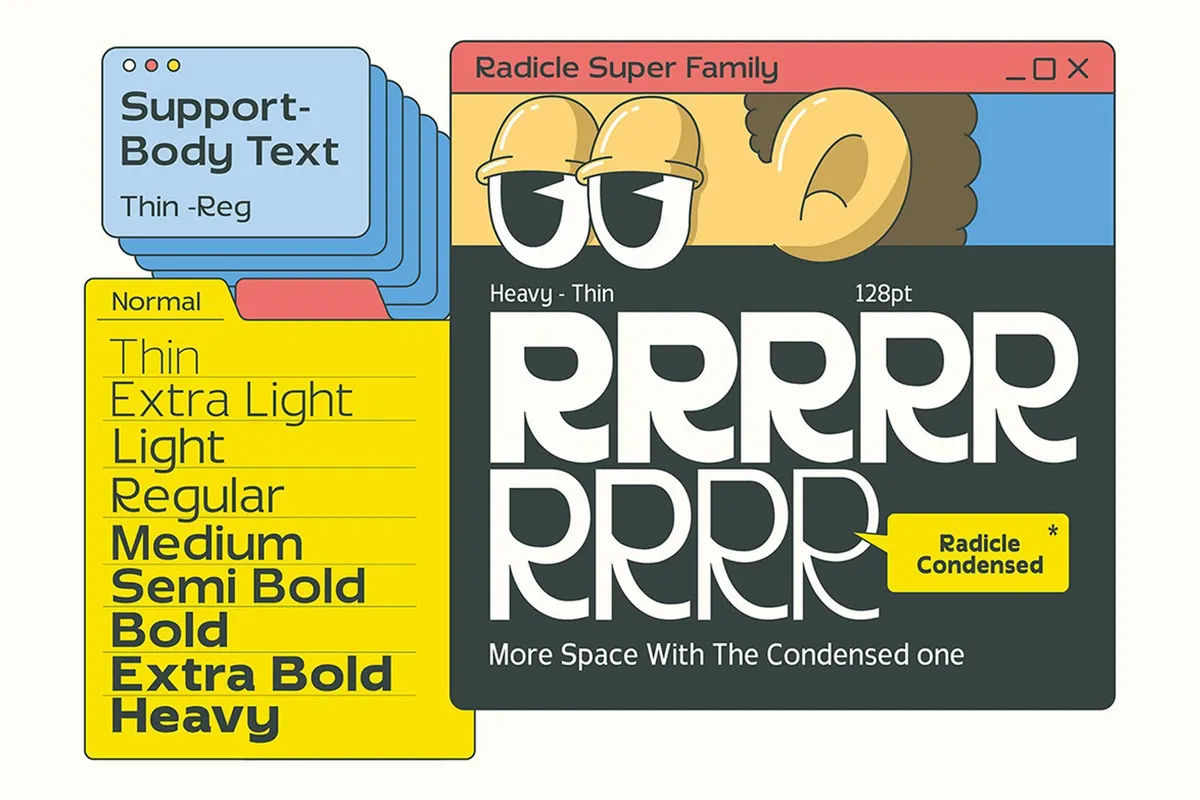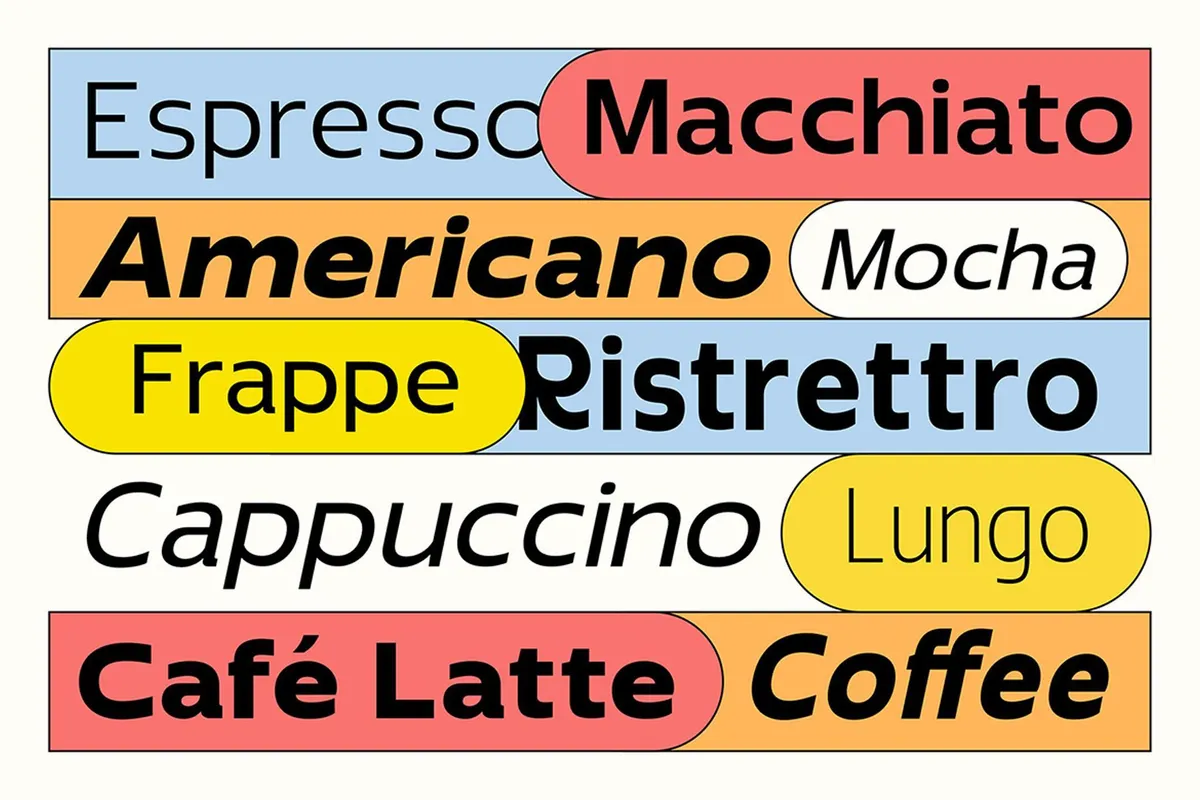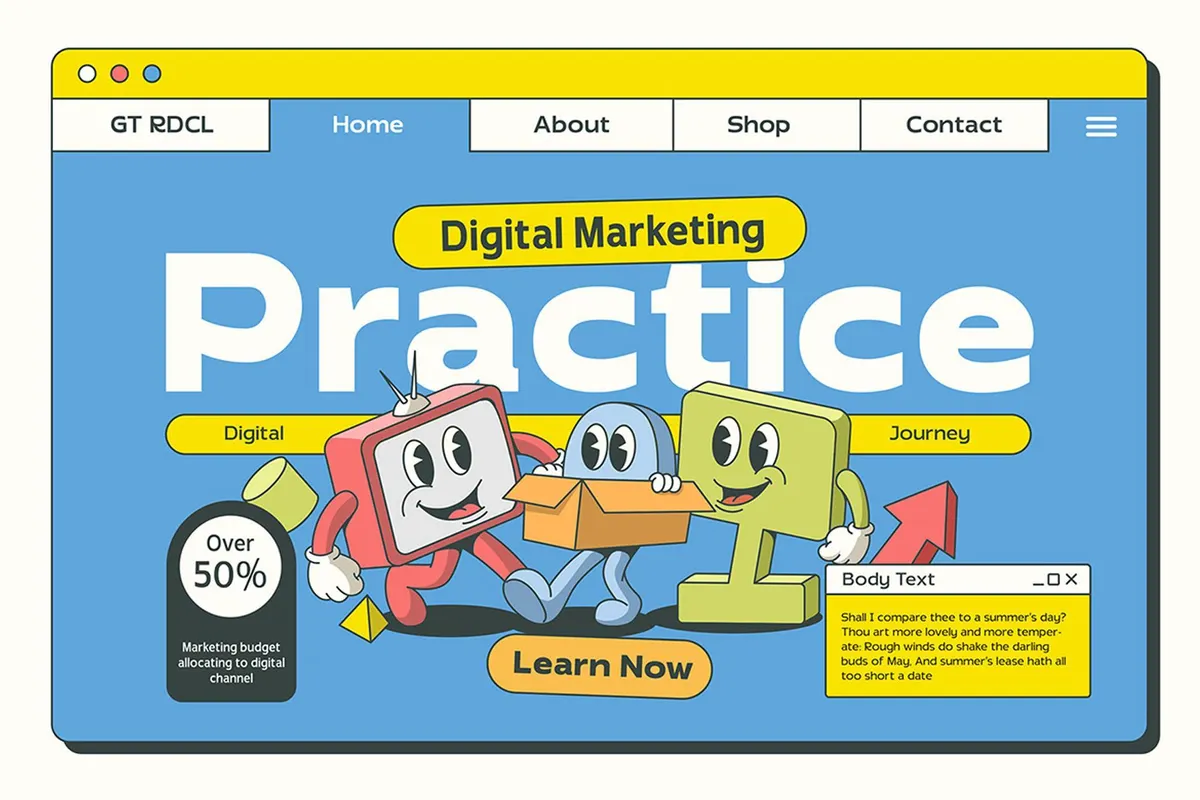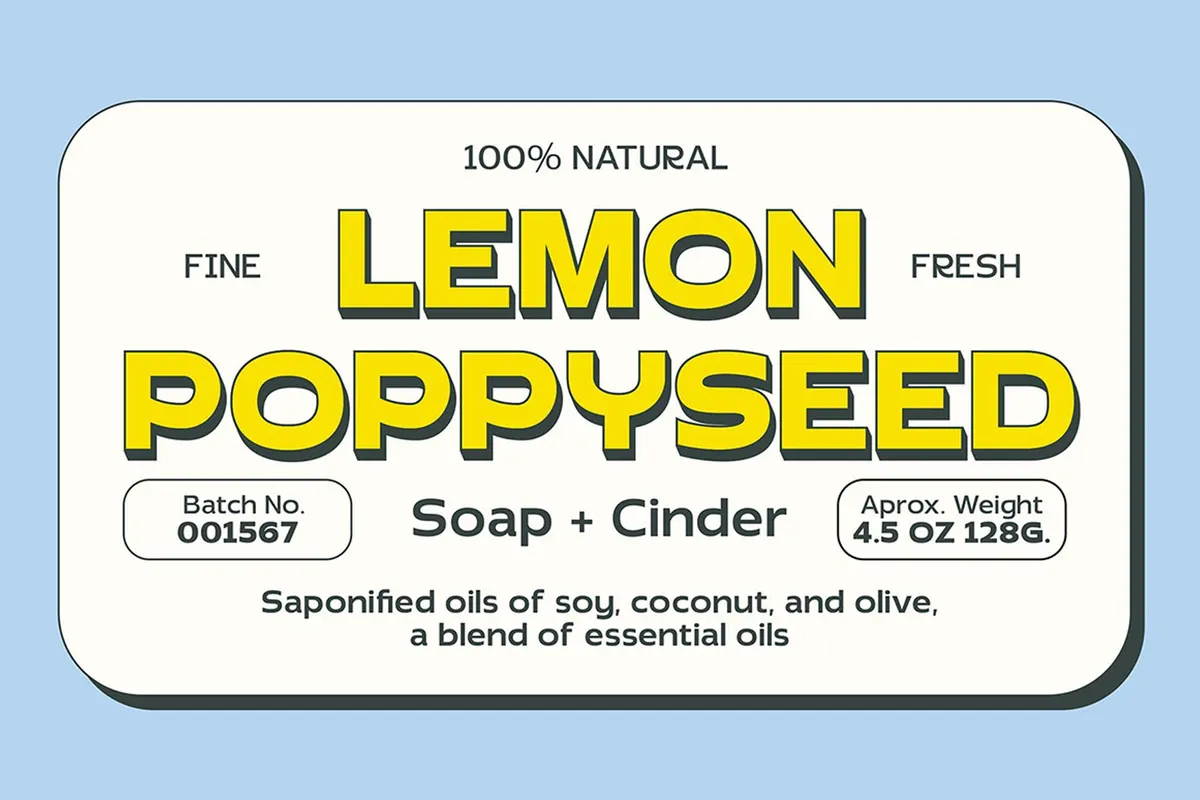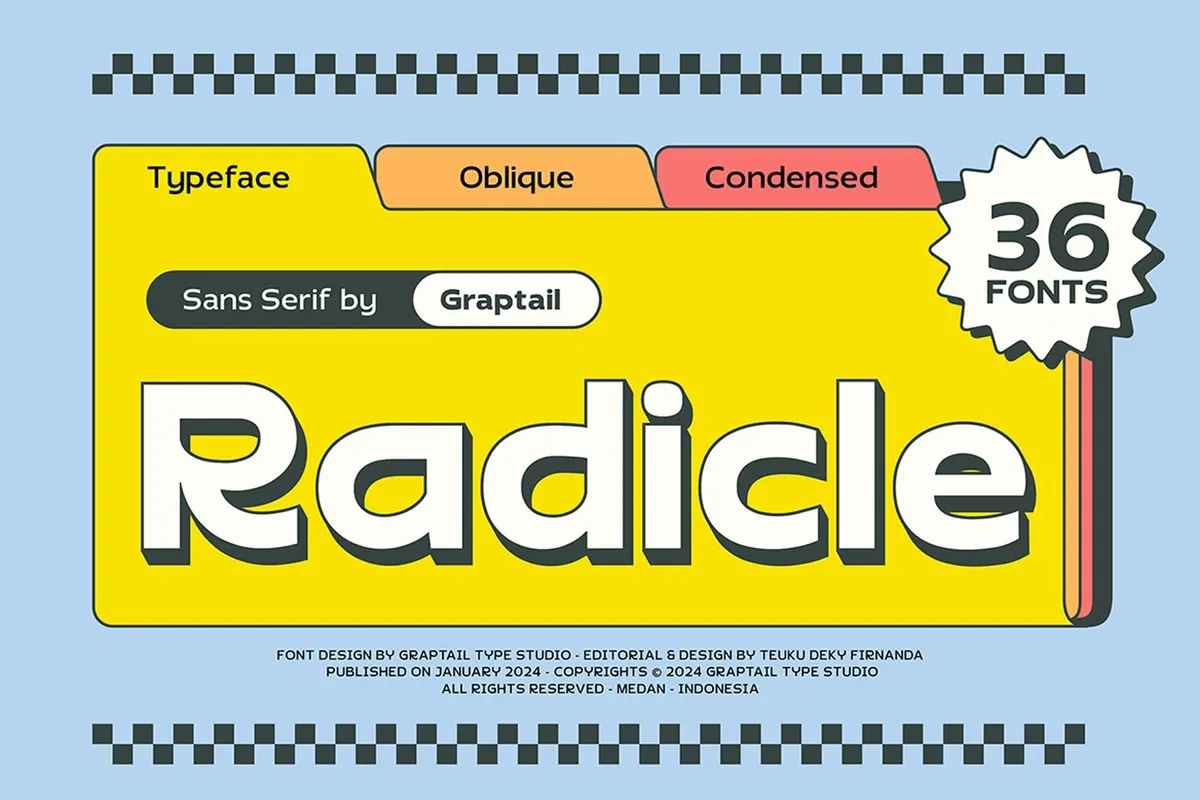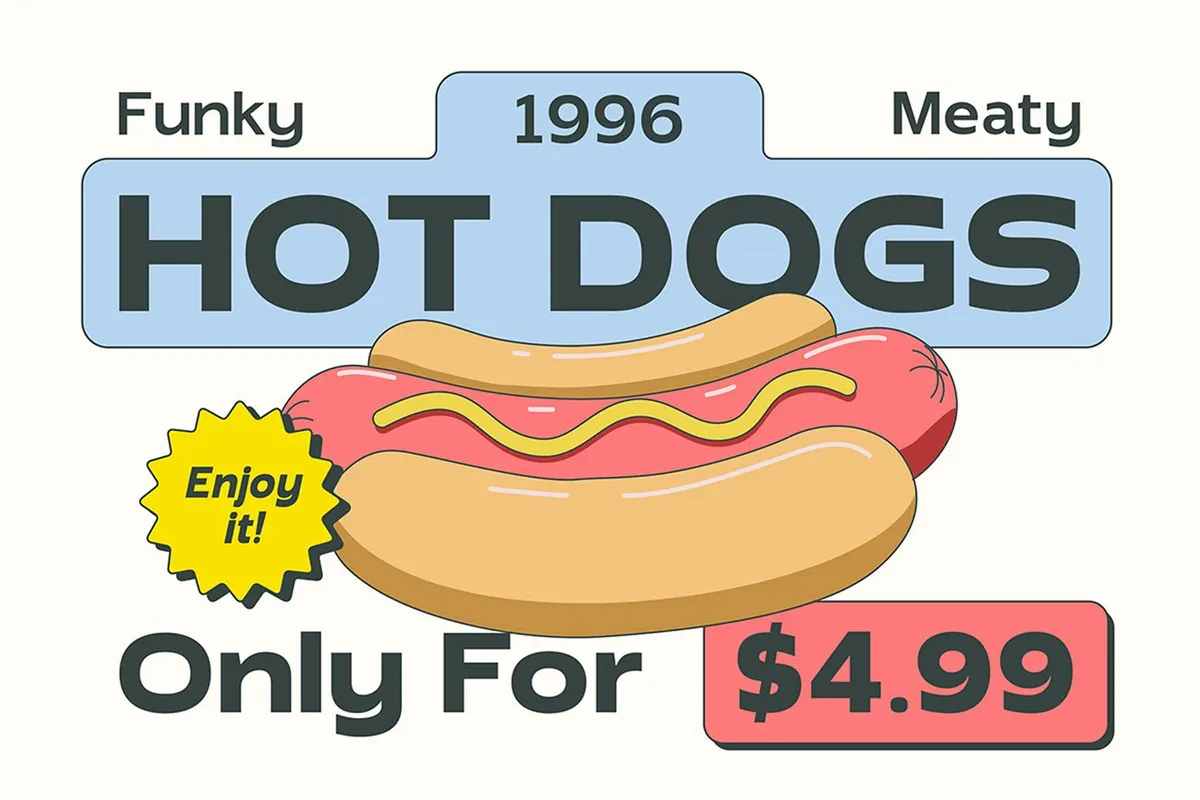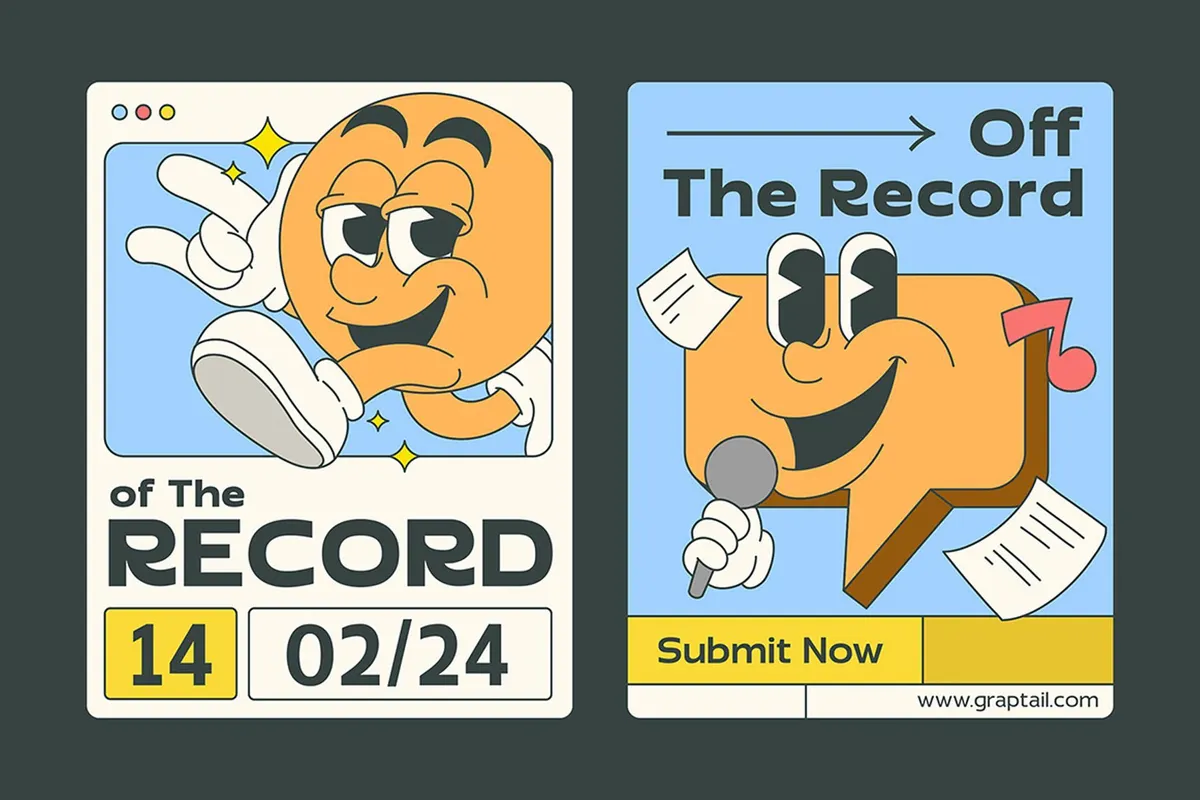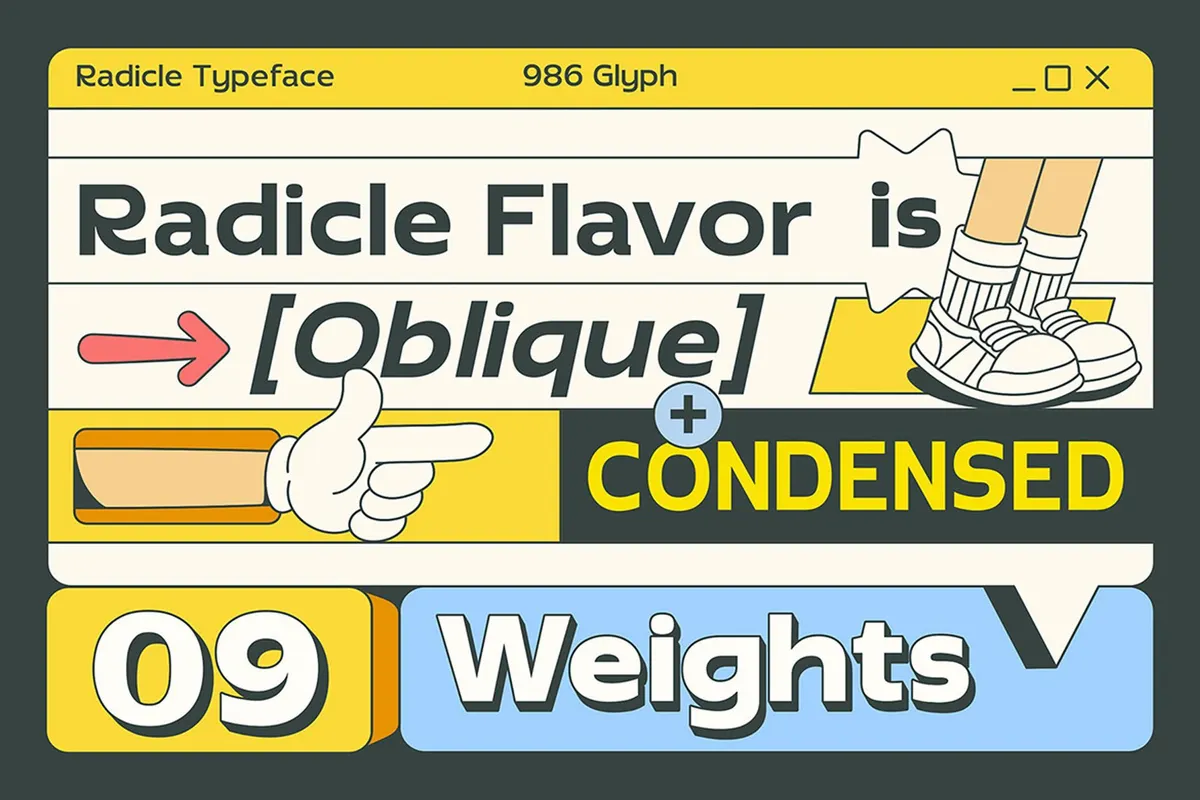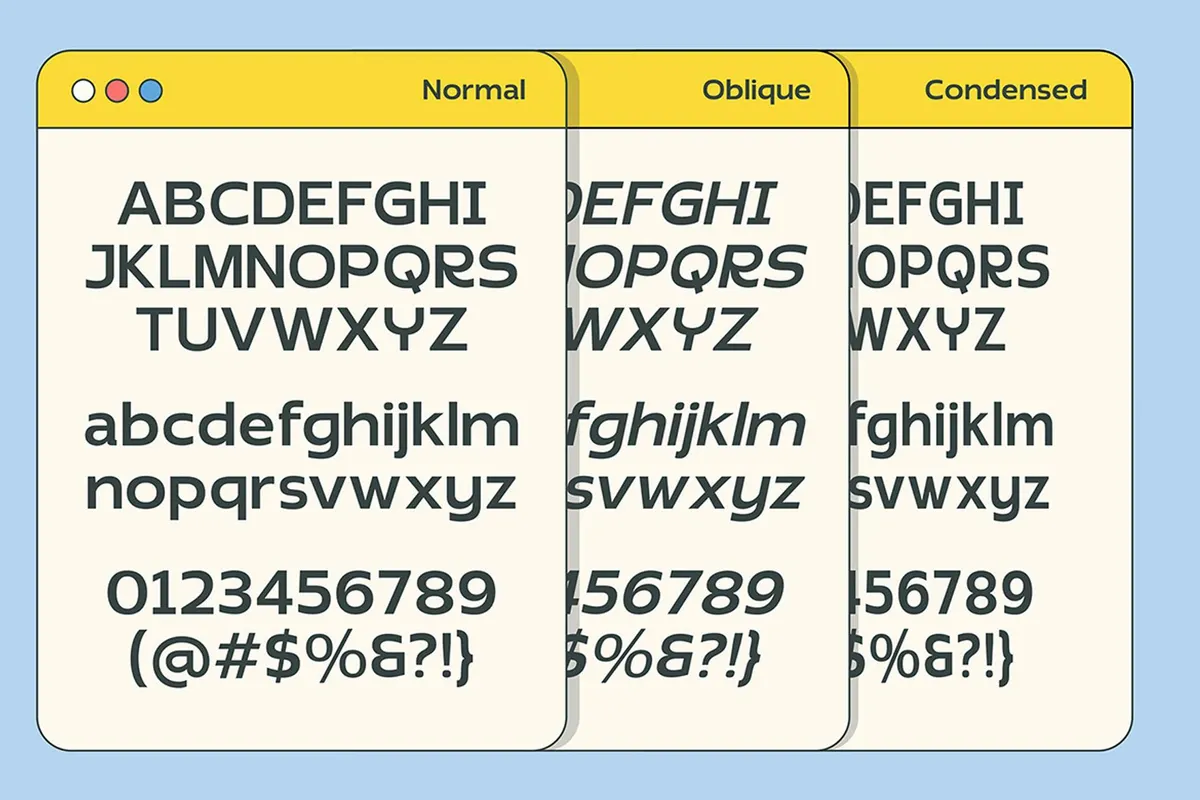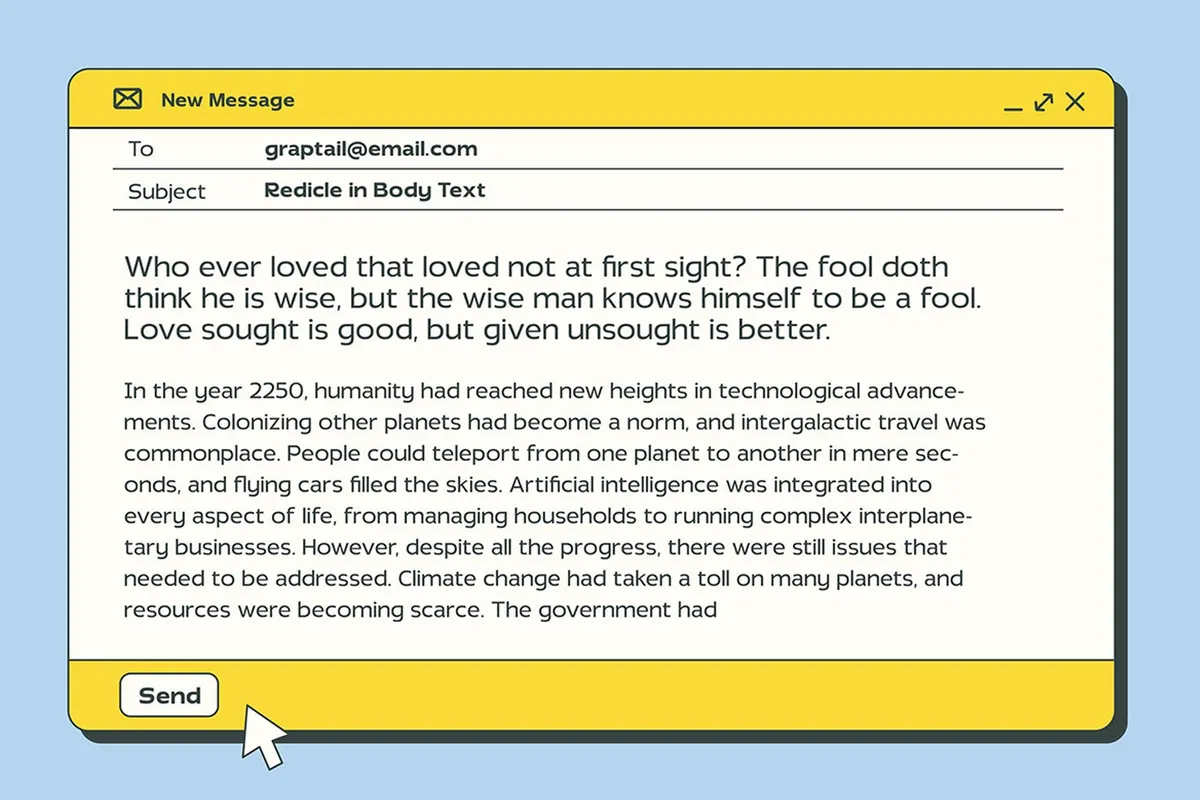
Radicle Font Family
Long live the cartoon style! And it does, holding creatives' hearts in its rubber hose grip forever. Even if cartoon characters might feel like 'nay' to someone retro-overdosed, a retro font family is a YAY! Especially if it's as huge as Radicle. 36 types, it's a headshot!
It's just as you like: a combo of modern sans-serif elegance and a nostalgic nod to the retro visuals. A perfect pick to go back to the roots but with some polished stuff at hand. The 36 fonts weren't a joke: Radicle is that huge indeed. Each boasts clean lines and geometric shapes, so you can play the '36 shades of sans serifs' game. No Red Room is required, only your design app. For each font, there goes a complete character set , making the total number of glyphs monstrous — we tried to calculate but failed. Atop of that, there's multilingual support , so you can compose a message for any audience (that uses a Latin-based alphabet, ofc) and design things for any purpose.